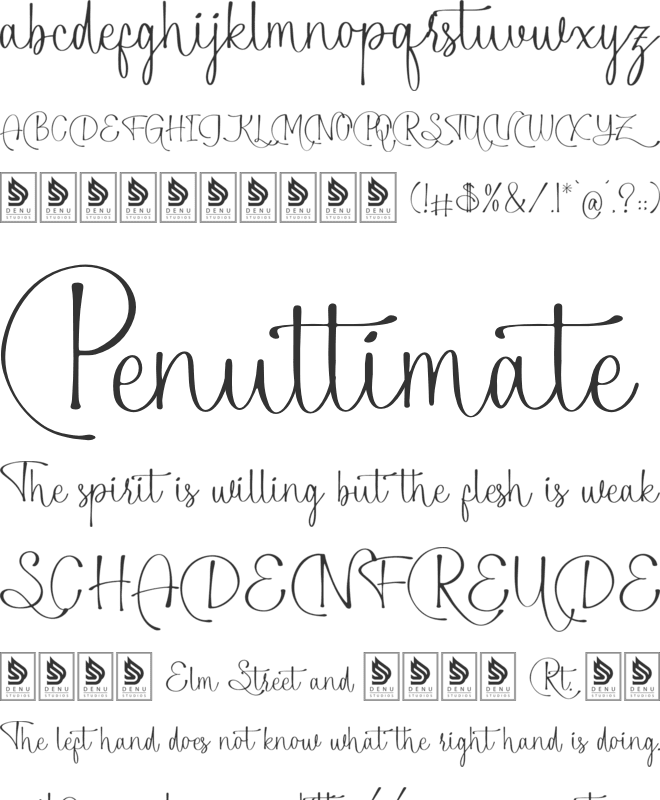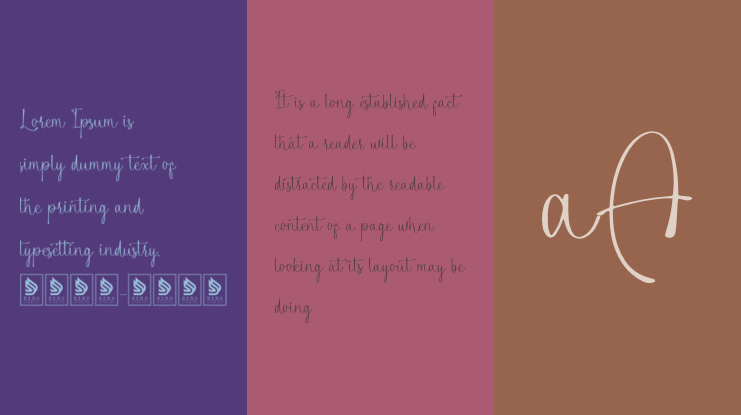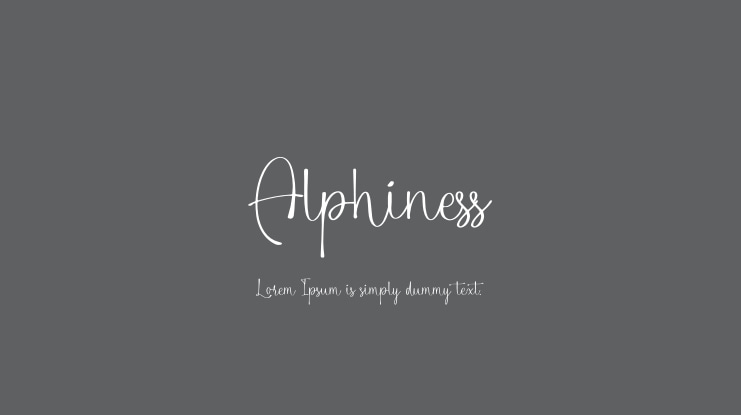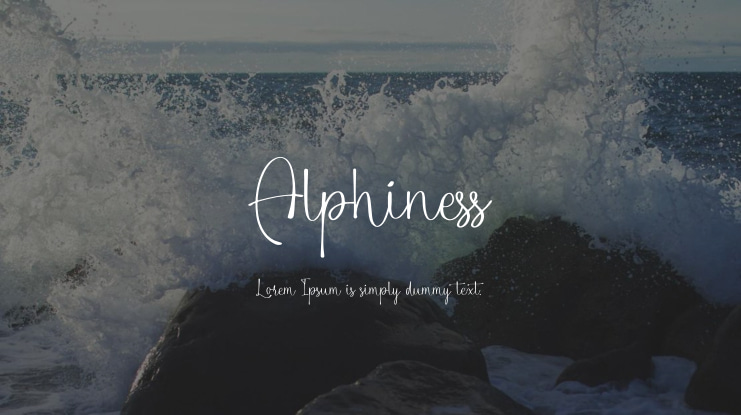
Alphiness Font
**Alphiness | Handwritten Script Font** is perfect for a variety of projects including logos, branding, homeware design, product packaging, mugs, quotes, posters, shopping bags, t-shirts, book covers, name cards, invitations, greeting cards, labels, photography, watermarks, special events, and any other creative work that needs a touch of beautiful script style.